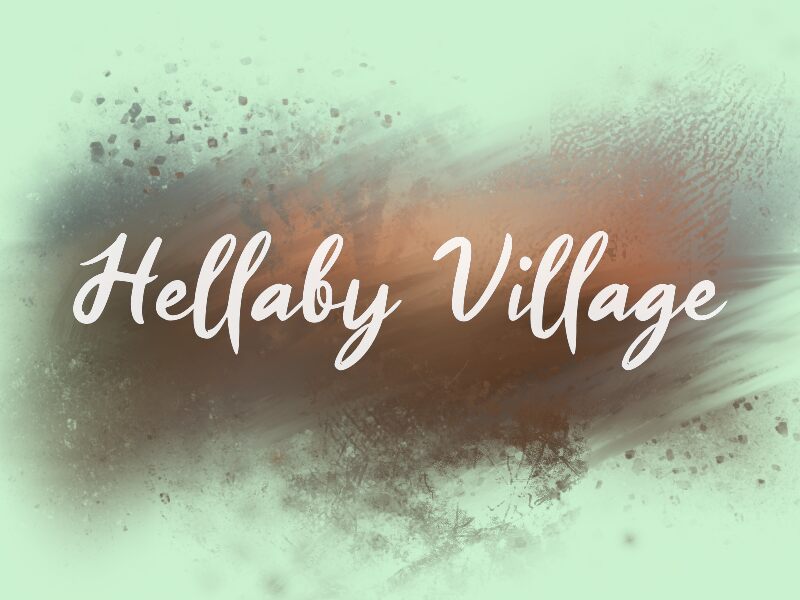
Hellaby Village
Hellaby Village font by wep is a free handwritten font with a casual and expressive feel. The modern script typeface has an approachable style, making it ideal whenever relaxed and informal designs are under consideration. Its organic flow allows it to look laid back no matter the written content.
Give variety to invitation cards, labels, notebook covers, logos, branding projects, flyers, websites, blogs with this one-of-a-kind font. Other relevant fields of use include stationery sets, quotes posters/frames, T-shirt designs and more!